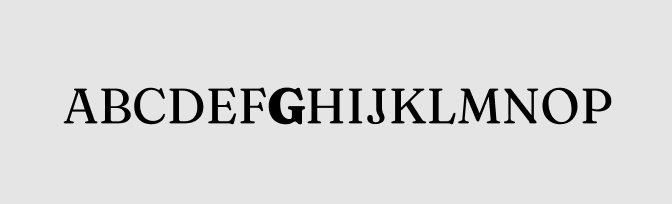
Variable font Fraunces has inconsistent font weight?
I’m currently using the font ‘Fraunces’ for a web project on Figma. The letter ‘G’ in Fraunces Semibold looks extra bolded even though it’s the same font weight. I’ve looked up the fonts in Google Fonts and also tested in Illustrator but the font weight is consistent on other platforms. Could Figma please solve this problem?